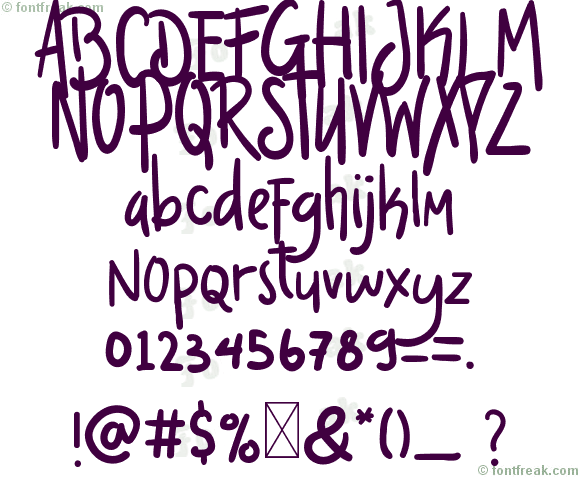
Dream Night
About Dream Night
The Dream Night font by Eknoji Studio is a delightful script typeface that captures the whimsical essence of nighttime dreams. This font stands out with its playful yet elegant design, featuring soft curves and fluid strokes that create a sense of movement and spontaneity. The stroke weight varies subtly, offering a charming contrast that draws attention without overwhelming the viewer. The generous spacing between characters adds to its airy feel, making it easy to read while still maintaining a decorative flair.
Ideal for various creative projects, the Dream Night font shines in contexts such as wedding invitations, where its romantic vibe can enhance the overall aesthetic. It's also perfect for children's book covers, lending a sense of wonder and imagination that appeals to young readers. Restaurant menus can benefit from its inviting style, making dishes appear more enticing to patrons. Additionally, this font works beautifully in social media graphics, helping content creators craft engaging posts that capture attention.